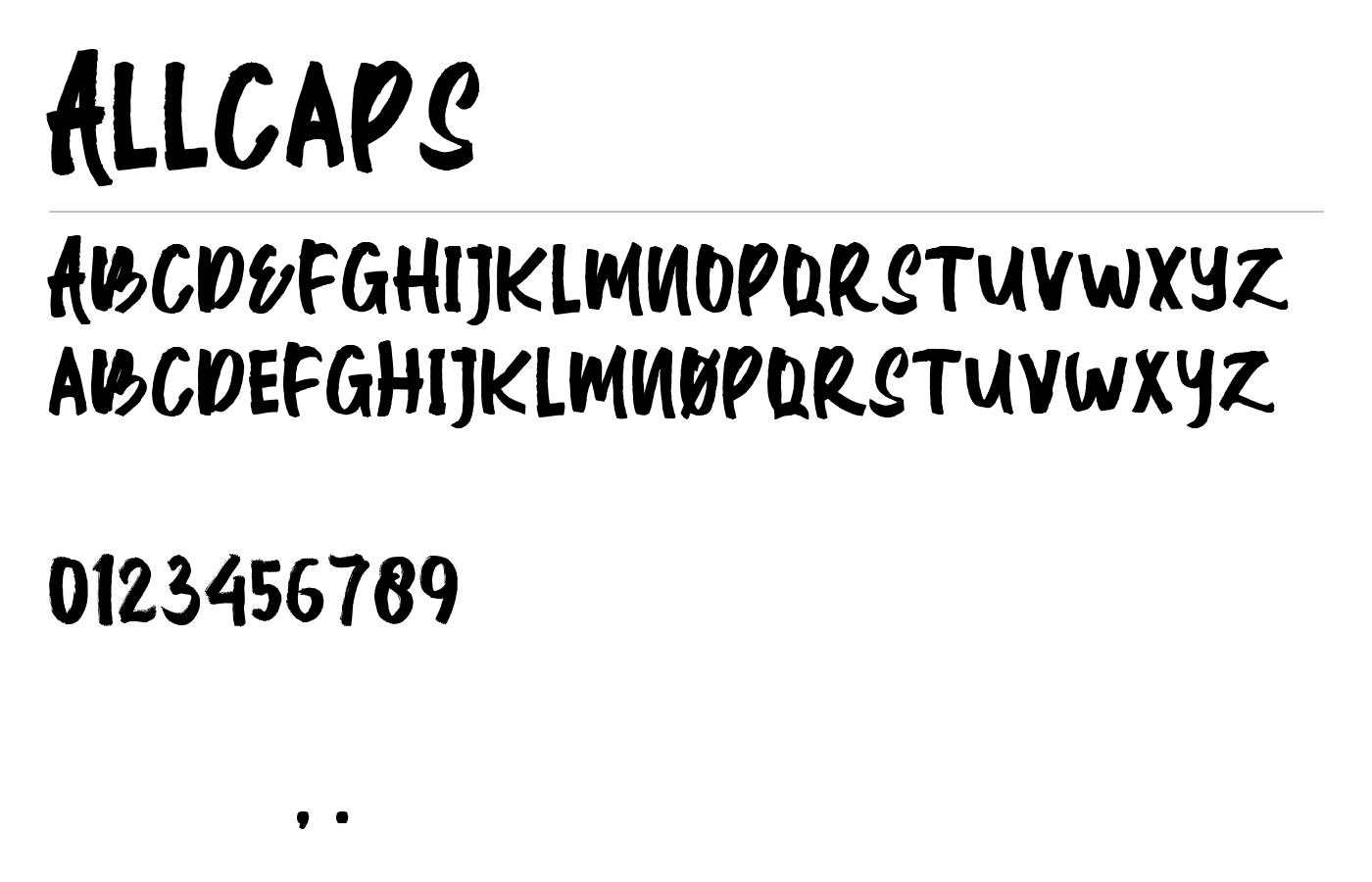
Allcaps Font is a bold, hand-drawn sans serif with a playful and informal style, featuring energetic brush strokes and casual, uneven letterforms. Its thick, textured appearance gives it a lively, approachable personality that works well for creative projects, branding, posters, and headlines where a fun, handcrafted feel is desired. This font adds a dynamic, artistic touch that easily grabs attention and conveys warmth and personality.
Allcaps Font
About Allcaps Font